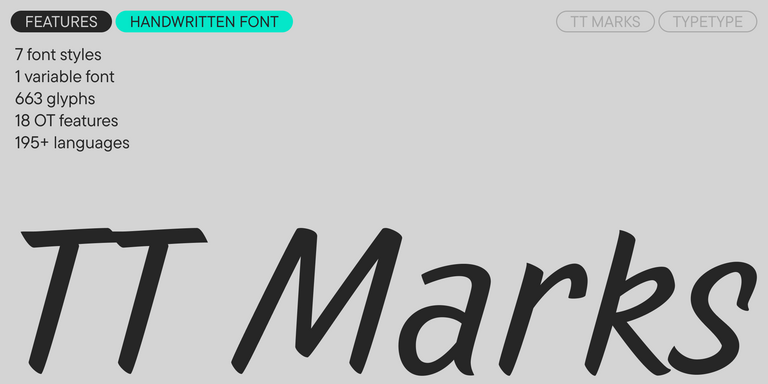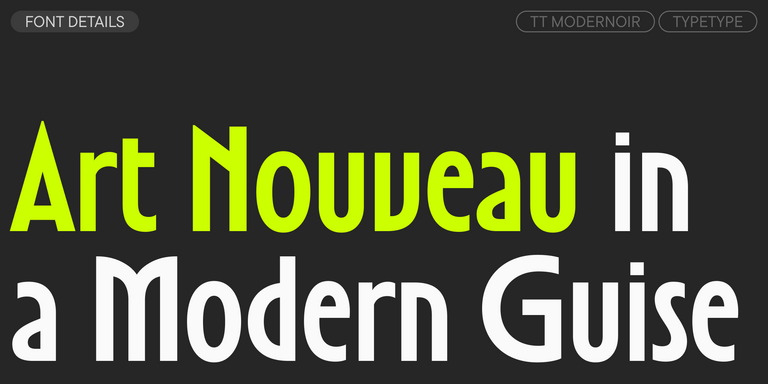
TT Odellia is an old-style serif with a modern design, inspired by Venetian typefaces and classical music.
Vintage Fonts
TT Modernoir is a display sans serif with dynamic proportions. Fluid lines and delicate Art Nouveau forms in this typeface blend seamlessly with the rhythmic flow and improvisational freedom of jazz.
TT Marks delivers a script with dynamic rhythm, heartfelt character, and nostalgic appeal inspired by the classic art of American sign painting. This craft, where skilled artists hand-painted storefront signage with brushes and careful technique, is experiencing a well-deserved renaissance in today`s design world.
TT Carvist—peculiar, playful, and courageous—this font does an excellent job of grabbing attention!
The starting point of the TT Trailers project was the idea to develop a new generation of narrow typefaces for use in movie credits and posters.
TT Backwards Sans is a narrow grotesque, which takes us back to the book design of late 70s and early 80s with its ductile characters.
TT Knickerbockers Grotesk is a narrow contrast sans serif with characteristic elements sending us back to the 19th century in New York.
TT Polls is the modern modular slab serif family for using in sports-related design.
TT Berlinerins is a grotesque inspired by the wood-type poster types of the first third of the 20th century is responsible for the historic component of Berlin.
TT Milks is a Collection of typefaces for branding
TT Corals is a modern humanistic sans serif which has many typical traits of the beginning of the 20th century. For an increased functionality of the font family, we`ve created 6 styles of various weights.
TT Norms® Pro is a typographic legend embraced by world-renowned brands. Evolved through multiple iterations, it has conquered MyFonts and redefined typographic versatility. A design workhorse that transforms from a humble tool to an essential creative companion.
TT Commons™ Pro is the studio’s typographic powerhouse. A font so versatile it defies categorization, seamlessly bridging style and function. For designers seeking a universal foundation that elevates every project, this is the definitive choice.
TT Hoves Pro is a Scandinavian sans serif that whispers minimalist elegance. Simultaneously understated and distinctive, it’s a designer’s secret weapon that transforms complex challenges into visual poetry with effortless precision.
TT Supermolot Neue is a game-changer in visual communication! An advanced, modular sans serif that captures the pulse of technological innovation, bringing electrifying vision to everything from immersive game interfaces to bold visual narratives.
TT Firs Neue is a balanced sans serif infused with Scandinavian design philosophy. Elegant and versatile, polished through two deliberate revisions to achieve typographic perfection.
TT Rounds Neue is a soft and friendly font that knows how to be different. In lighter font styles it looks minimalist and neutral. The bold font styles make it puff up and achieve maximum roundness, exuding childlike charm.
TT Fors is a design Swiss Army knife of typography. This geometric sans serif delivers pure versatility through clean, refined proportions. It can be used for defining interfaces or crafting visual accents.
TT Ramillas is a stylish and contemporary serif that elevates design to an art form. Characterized by its unique decorative styles and initials with a floral ornament, it crafts visual experiences that are truly one-of-a-kind. Already adorning over 3000 websites globally, it’s a Modern Cyrillic award-winner that redefines typographic sophistication.
TT Octas is a narrowly proportioned font family built upon the principle of octagonal forms: all circles in this typeface are actually octagons. Thanks to small serifs, TT Octas has a vintage character to it.